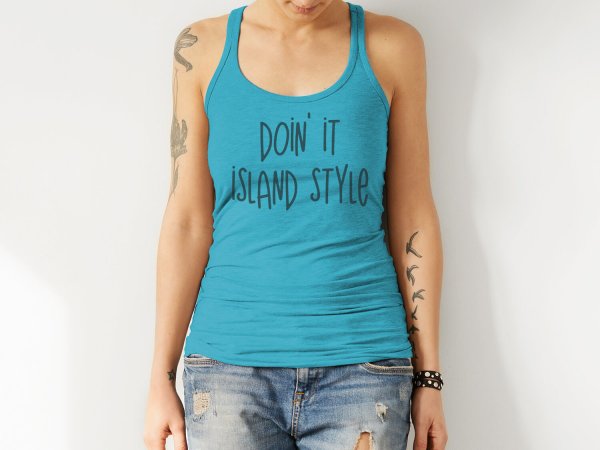
The Island Sans Font
The Island is a funky, kinda weird font with a varied baseline and a mixture of caps & lowercase.
The Island Sans Font is perfect for t-shirts & other products. Inspired by my Island life as a child, it gives a funky edge to a casual coastal brand.
The Island Sans Font features a varied baseline to add to the whimsical look & feel.  It also includes numbers & basic punctiation, as well as Western European Language Support.